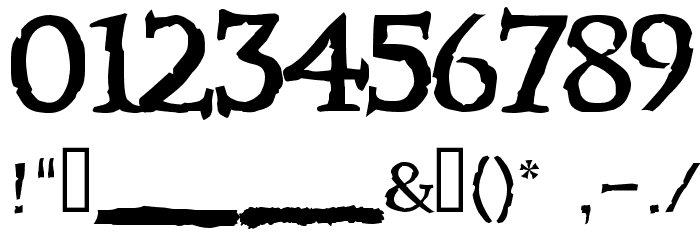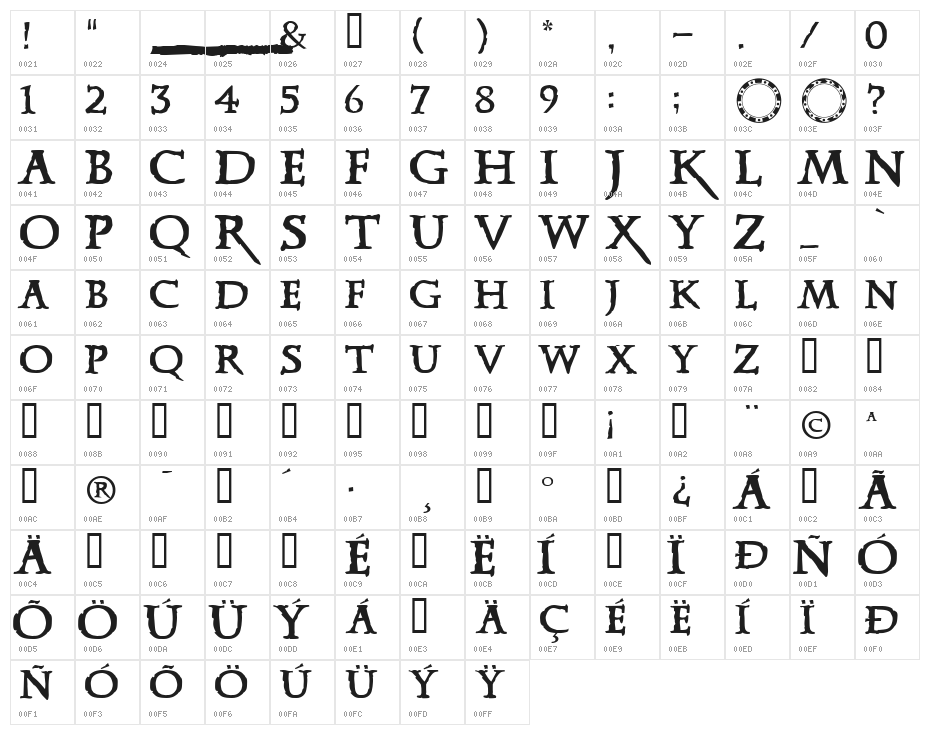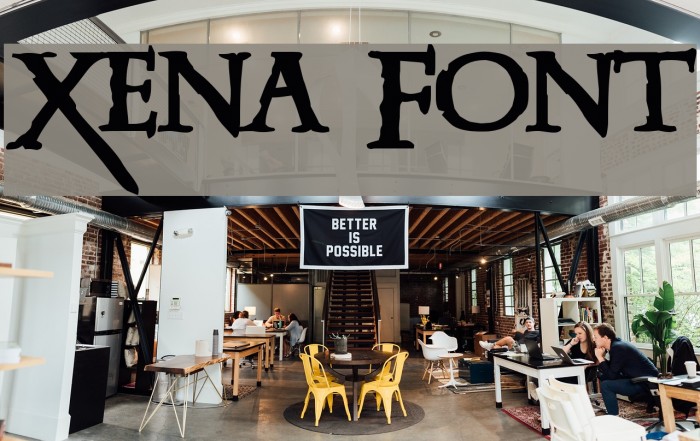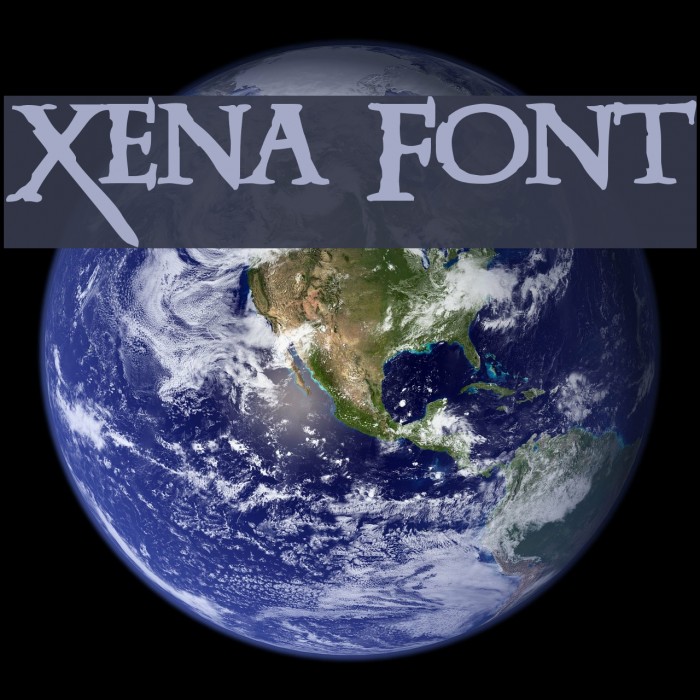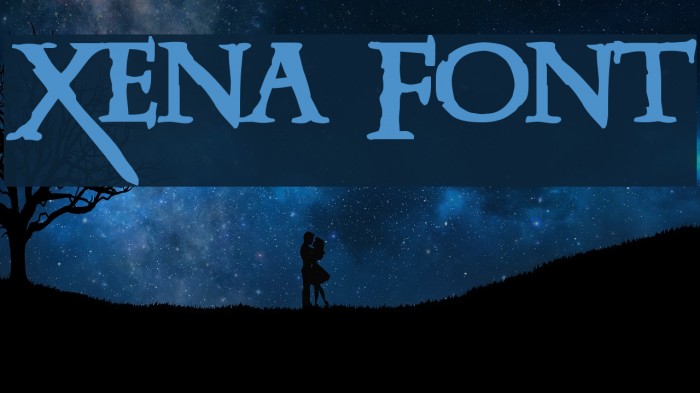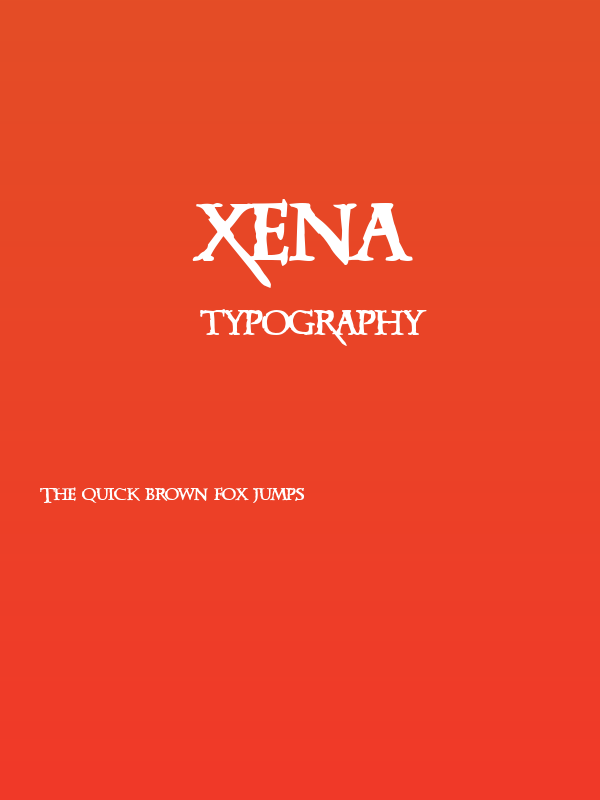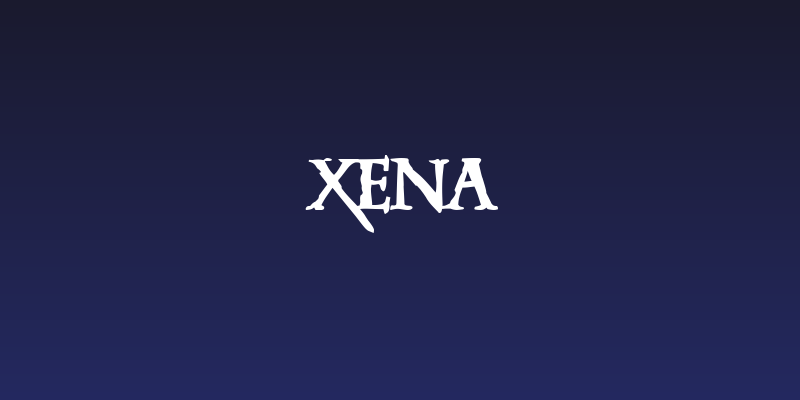
Xena Font
Xena Description
This font features a bold and dramatic style with sharp, angular serifs and a slightly distressed appearance, giving it a rugged and ancient feel. The uppercase letters are particularly striking, with exaggerated strokes and a sense of movement that suggests a historical or fantasy theme. The lowercase letters maintain this boldness, ensuring consistency across the typeface. Numbers and special characters are equally bold, with unique shapes that complement the overall aesthetic. The font's design is reminiscent of ancient scripts or medieval inscriptions, making it ideal for projects that require a touch of historical or epic flair.
| Proposed Projects | Ideal for fantasy book covers, historical themed posters, video game titles, and branding for medieval or ancient-themed events. |